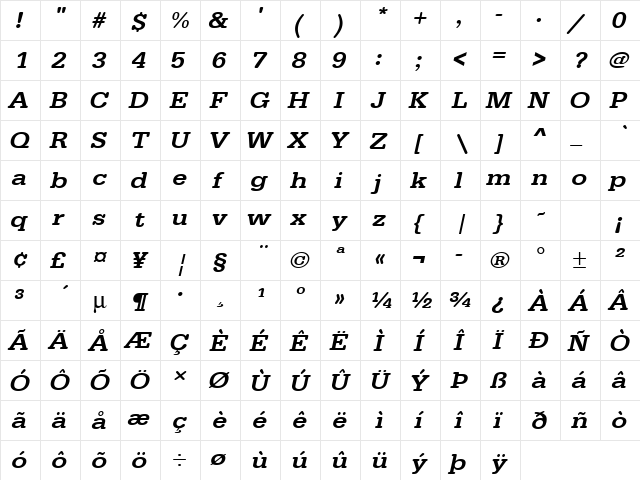
URWTypewriterTMedExtWid Oblique
Design Context for URWTypewriterTMedExtWid Typeface
URWTypewriterTMedExtWid uses fixed-width spacing throughout, giving it the structured, systematic character associated with coding environments and technical documentation. The slanted form adds forward momentum and visual energy.
A natural fit for code editors, technical documentation, developer-focused branding, and terminal-inspired UI.